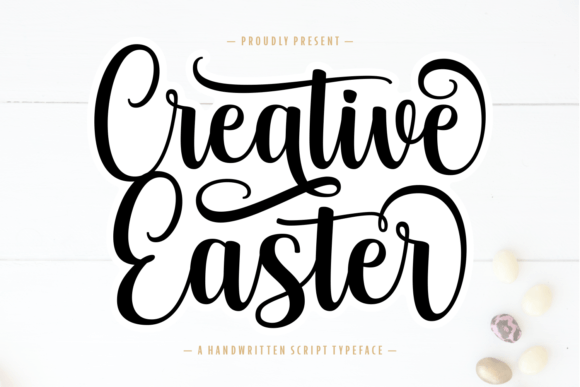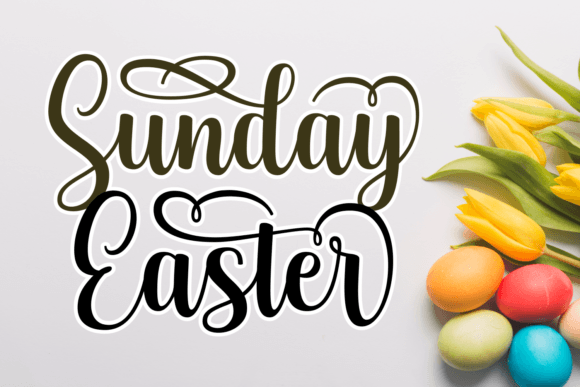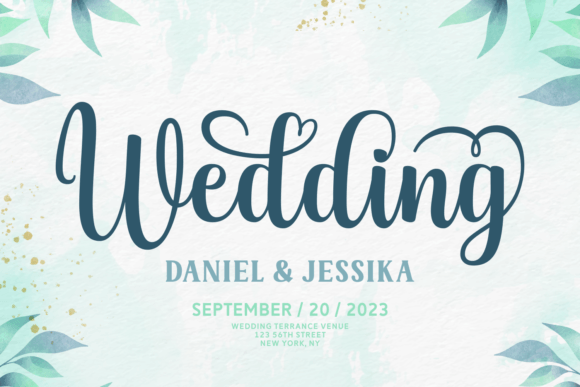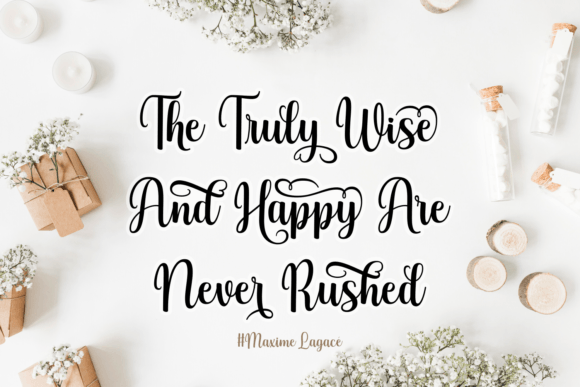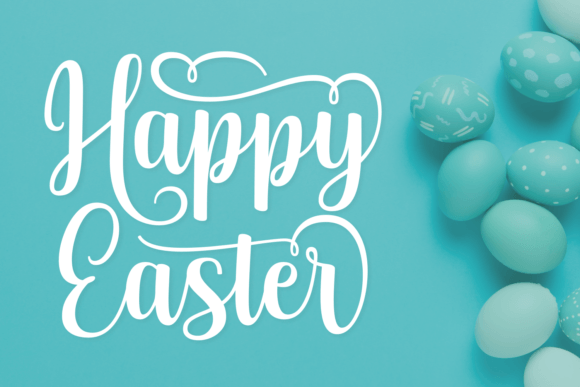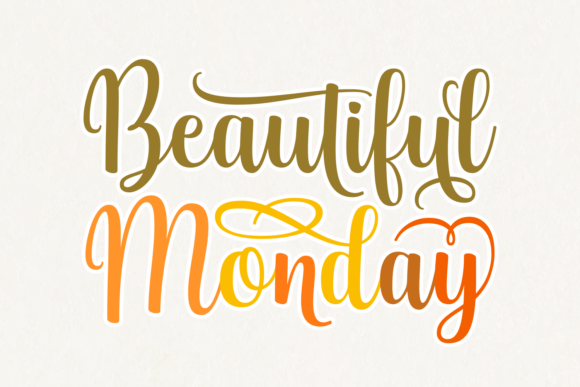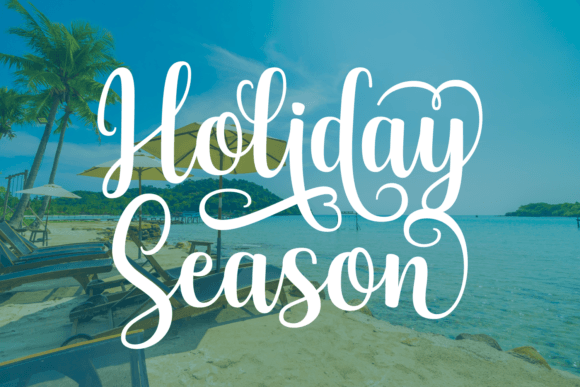
Discover the Elegance of Spring with the Creative Easter Font
As the snow melts away and flowers begin to bloom, I always find myself inspired by the beauty of spring. There’s something about the vibrant colors and delicate petals that sparks my creativity and gets me excited for new design projects. This time of year is the perfect opportunity to experiment with fresh fonts that capture the essence of the season, and that’s exactly where the Creative Easter Font comes in.
This stunning script font is a masterclass in elegance and minimalism, featuring fluid strokes and graceful curves that will elevate any design project. Whether you’re working on a wedding invitation, branding, or editorial design, the Creative Easter Font is sure to add a touch of sophistication and refinement. With its PUA encoding, you’ll have access to all the delightful glyphs and swashes you need to create truly unique and eye-catching designs.
Creative Easter Font Key Features
- Font Family: The Creative Easter Font includes 6 unique font styles, each with its own distinct design and characteristics.
- Unique Characteristics: The font features intricate Easter-themed designs, including eggs, bunnies, and flowers, adding a touch of whimsy and festivity to any design.
- Characters and Glyphs: Includes a wide range of characters, including uppercase and lowercase letters, numbers, and punctuation marks, as well as special Easter-themed symbols.
Designer Review: Creative Easter Font
Overall, I think the Creative Easter Font has some great qualities that make it a fun and playful addition to any design project. ✨
- Unique and creative lettering: The font’s eclectic style and use of Easter-themed elements make it perfect for spring-themed designs or holiday projects.
- Variety of styles: The font comes in a range of styles, from cursive to bold, which gives designers plenty of options to choose from.
- Great for hand-lettering: The font’s organic feel and imperfections make it well-suited for hand-lettering and custom designs.
However, I do have a few concerns. ⚠️
- Limited versatility: While the font is perfect for Easter-themed designs, it may not be as versatile for other projects or themes.
- Potential for overuse: The font’s playful style may lead to overuse, making it look less special or unique in certain designs.
- No language support: The font may not be suitable for designs that require text in languages other than English.
Overall, I think the Creative Easter Font is a great addition to any designer’s toolkit, but it’s essential to use it thoughtfully and in the right context. With some careful planning and consideration, this font can add a fun and creative touch to your designs.
The Creative Easter Font is ideal for creating Easter-themed designs, such as:
Easter cards and invitations
Spring-themed social media posts
Easter egg hunt flyers and posters